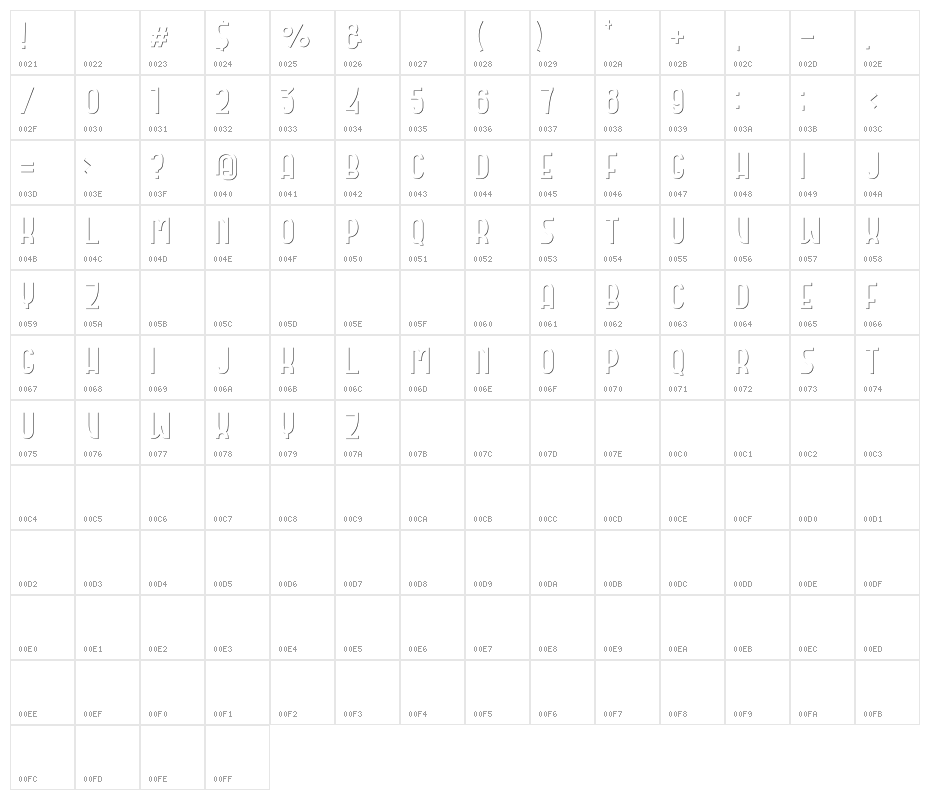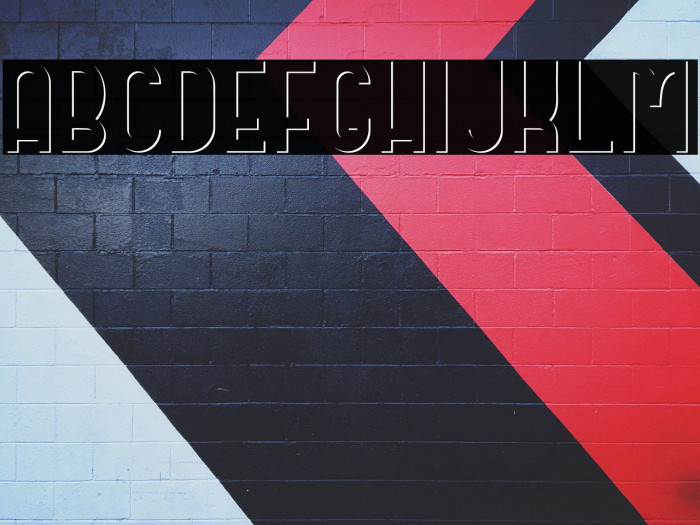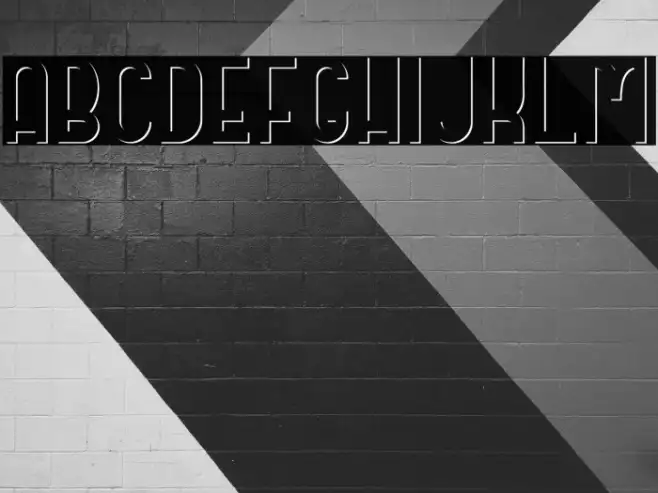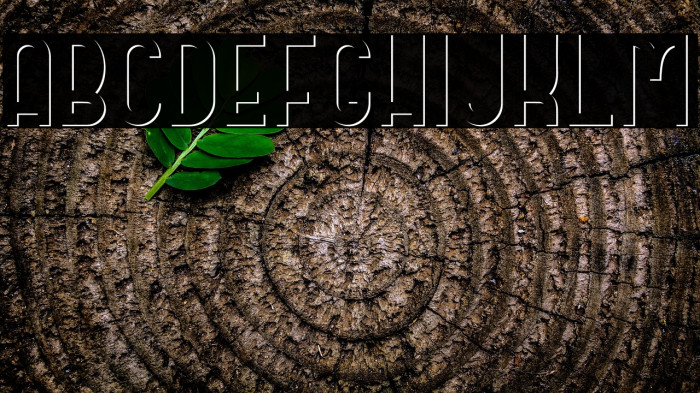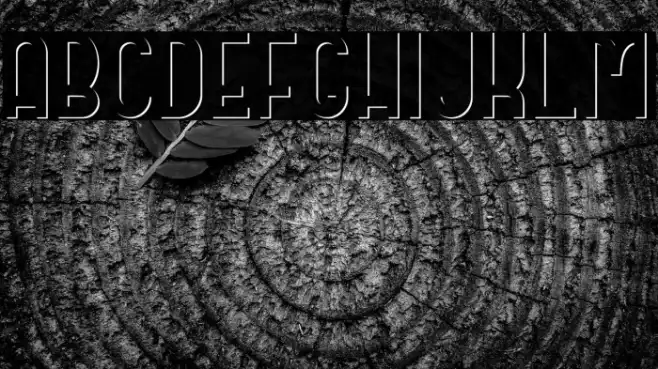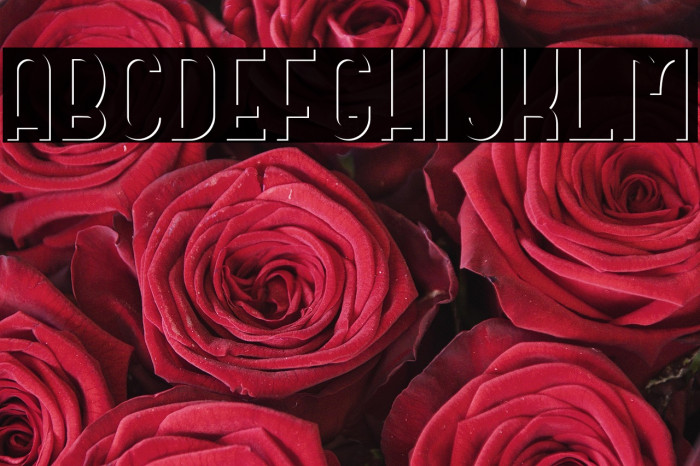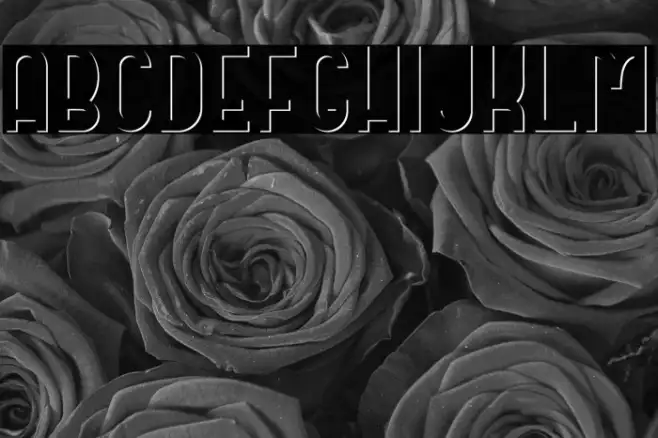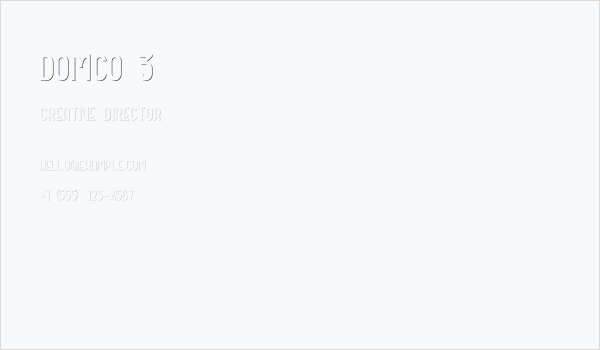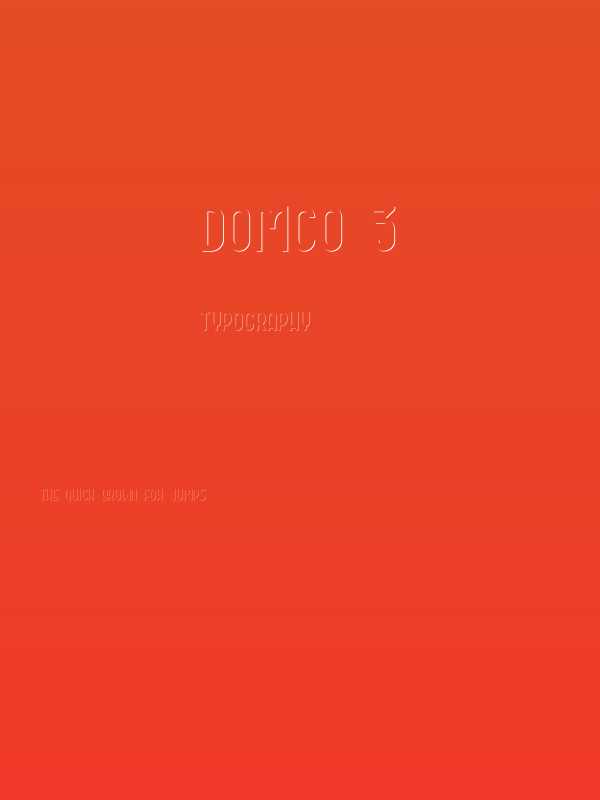
DOMCO 3 Font
DOMCO 3 Description
This font features a modern and industrial design with a stencil-like appearance. The characters are constructed with clean, straight lines and sharp angles, giving it a mechanical and futuristic feel. The uppercase and lowercase letters maintain a consistent geometric style, while the numbers and special characters follow the same aesthetic. The font's structure is open and airy, with distinct cutouts that enhance its stencil quality. This design is both bold and minimalistic, making it suitable for various creative applications.